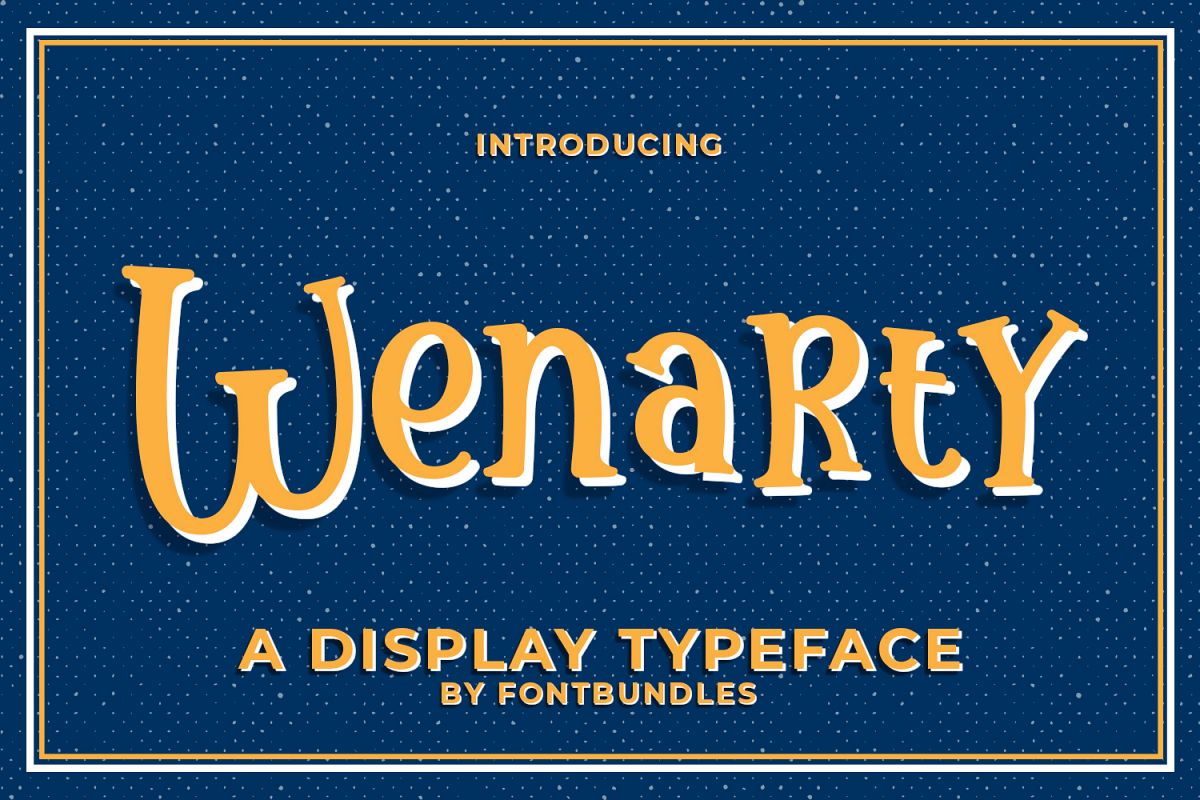
Wenarty is a display typeface. Perfect for poster, headline, branding, merchandise, tittle, logo, quotes, name card, crafting, business card, and many more.